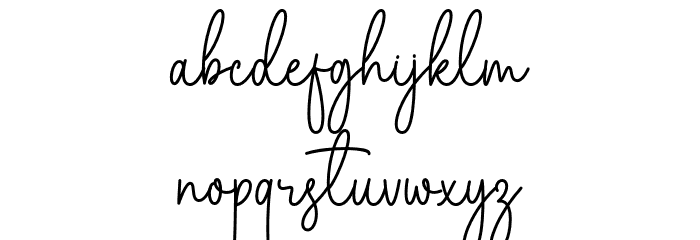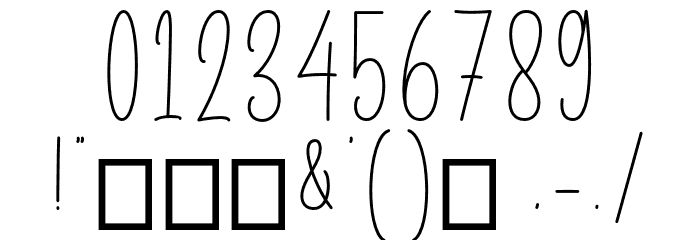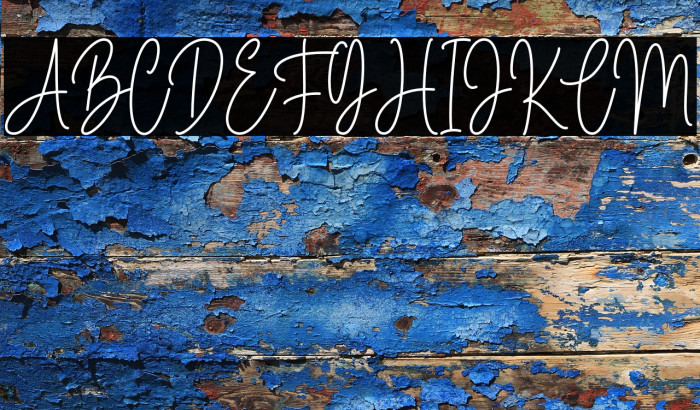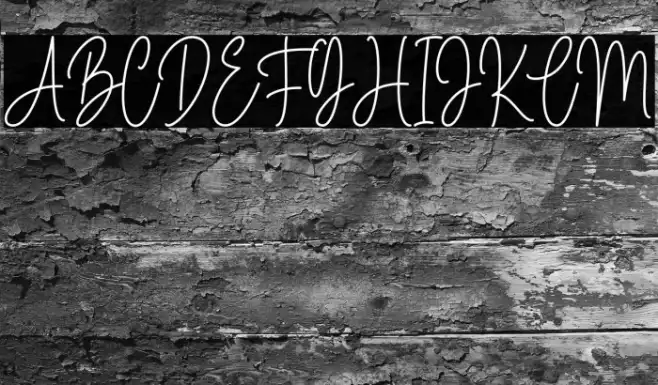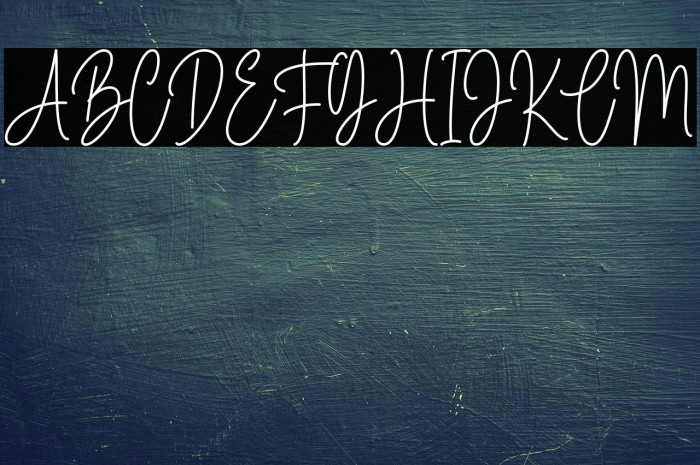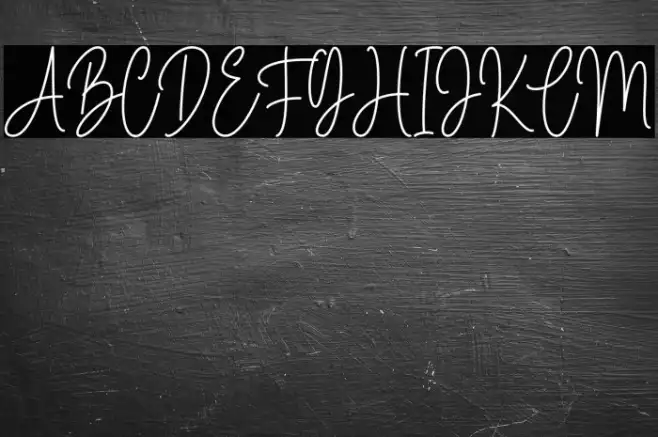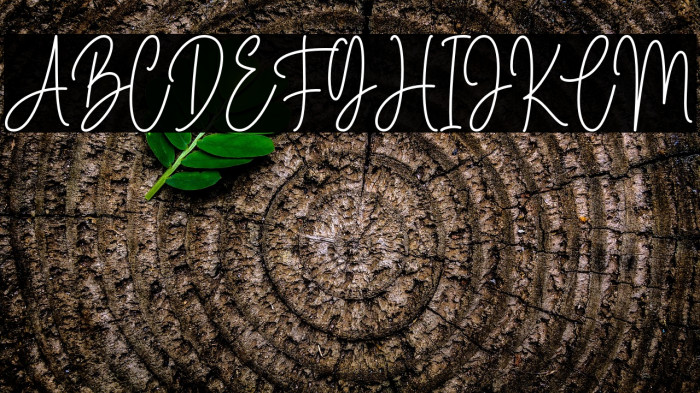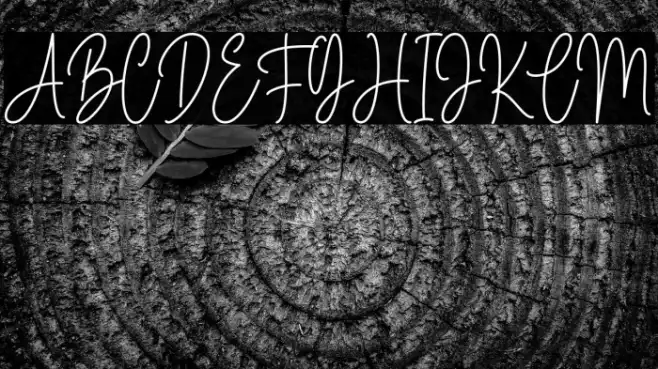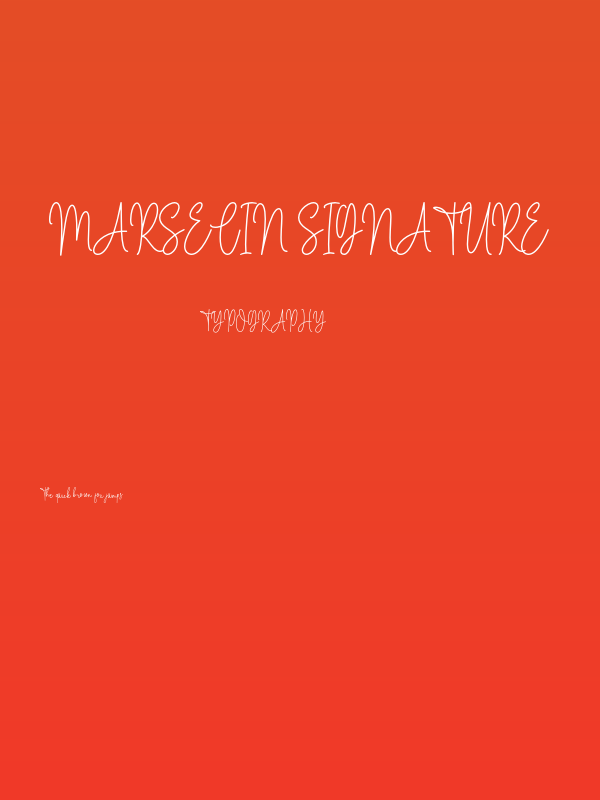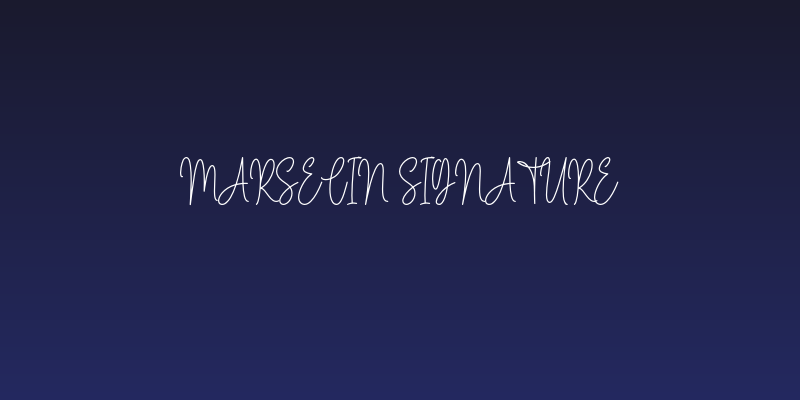
Marselin Signature Font
This elegant script font features a flowing, handwritten style with a modern touch. The uppercase letters are tall and slender, with graceful loops and curves that give a sense of movement and fluidity. The lowercase letters maintain a consistent style, with smooth connections between characters, enhancing the handwritten aesthetic. The numerals are distinct and easy to read, complementing the overall design. Special characters are thoughtfully integrated, maintaining the font's cohesive look. This font is perfect for projects that require a personal, sophisticated touch.
A modern, elegant script font with a flowing, handwritten style.
- Font: Marselin Signature
- Proposed Projects: Ideal for wedding invitations, branding, logos, and personal stationery.
- Category: Script
- Use Case: Logos, Invitations, Branding